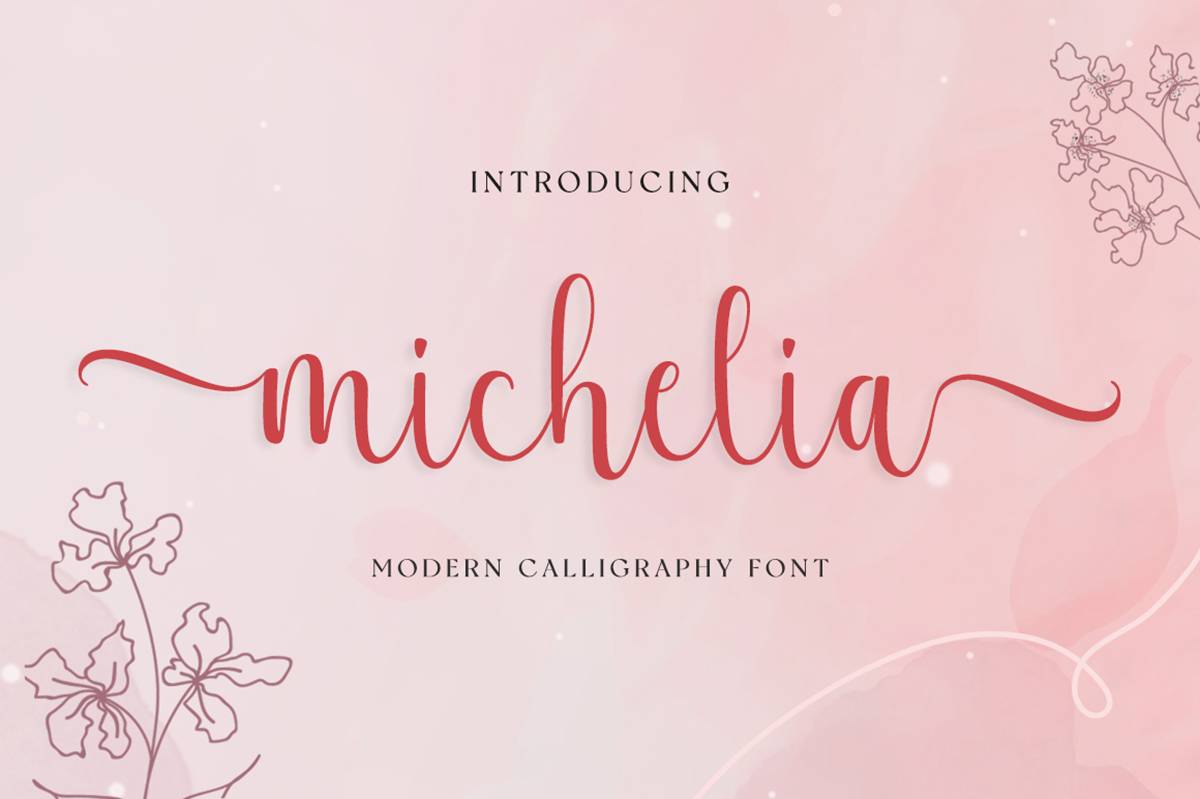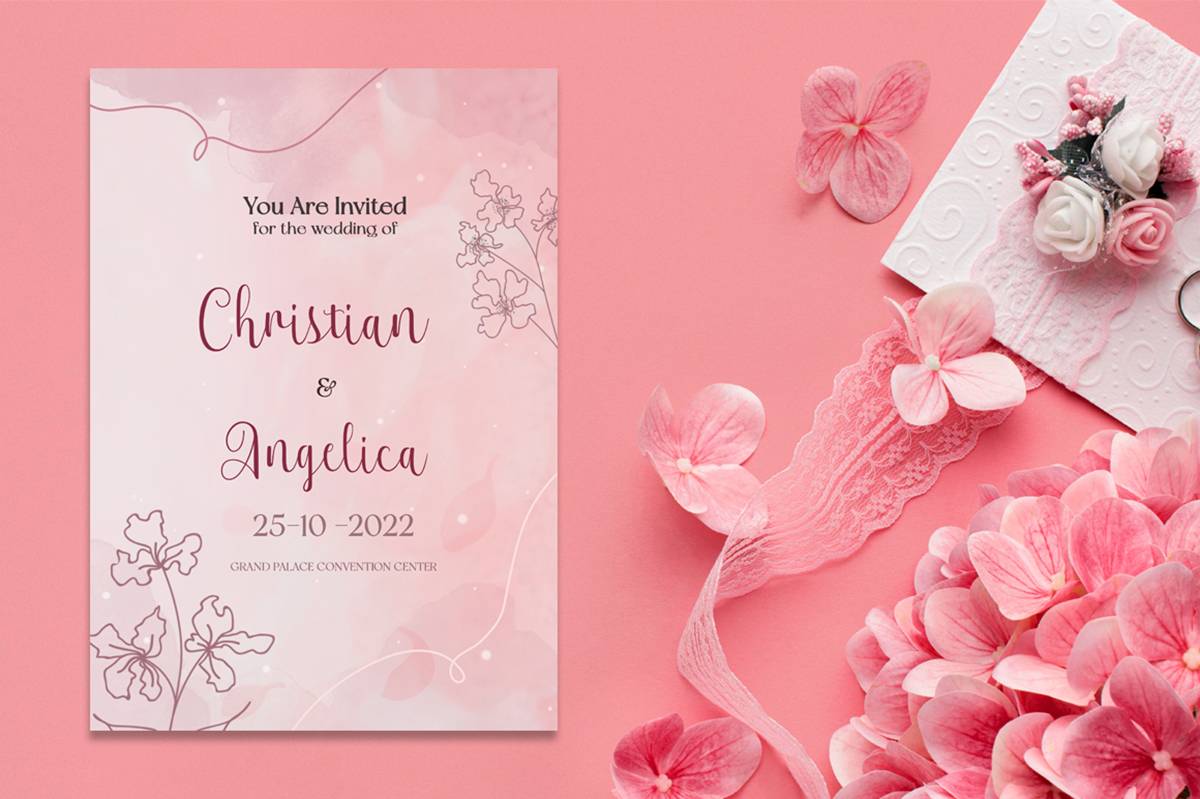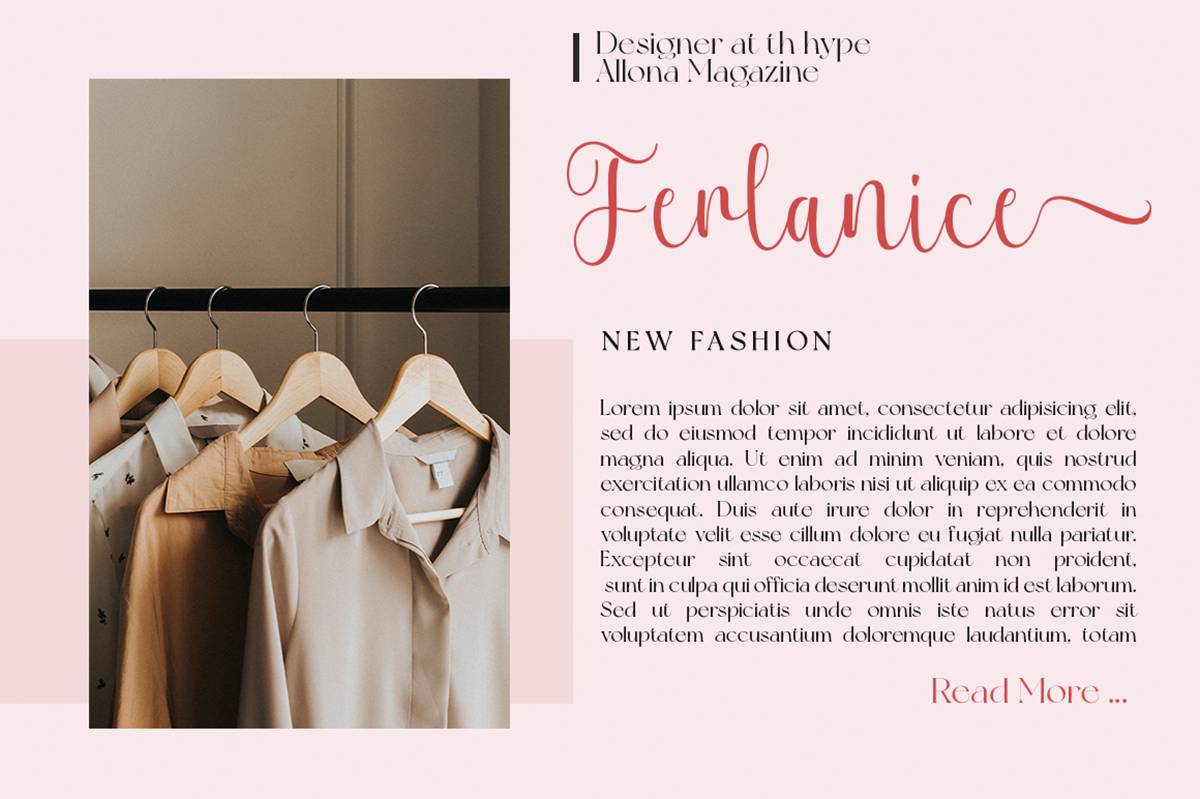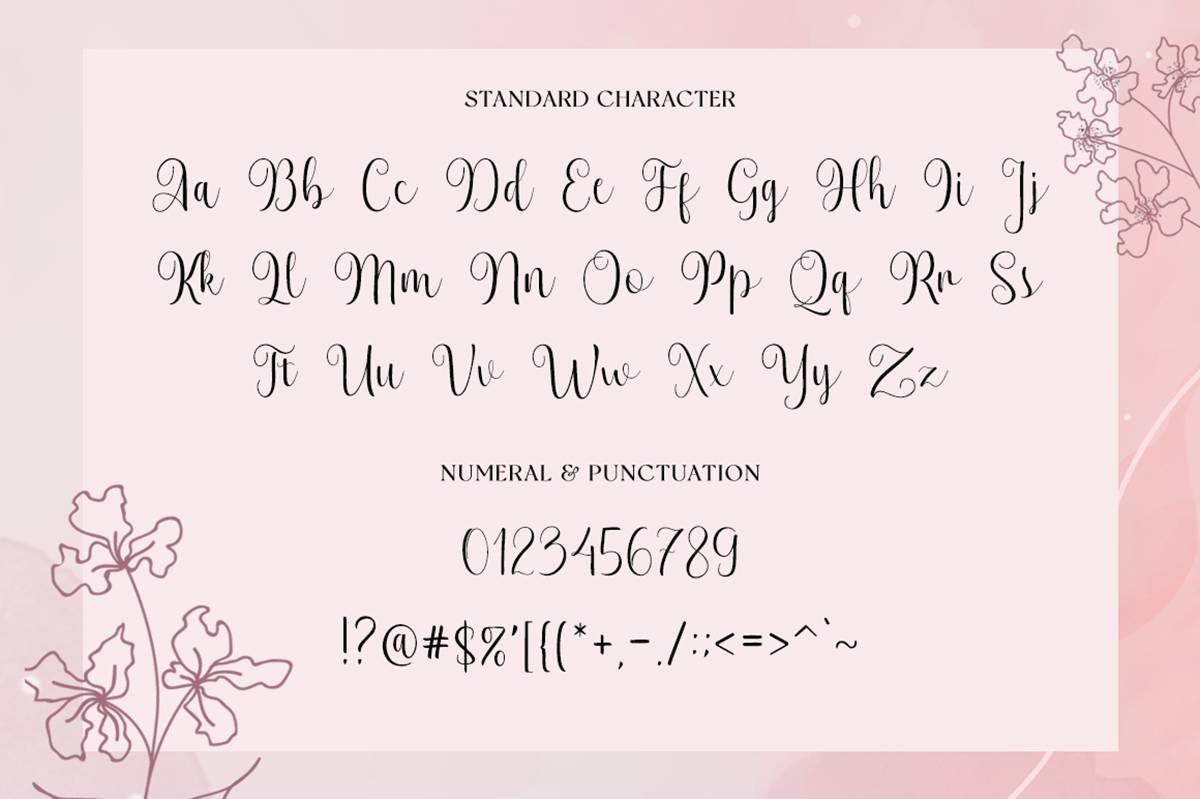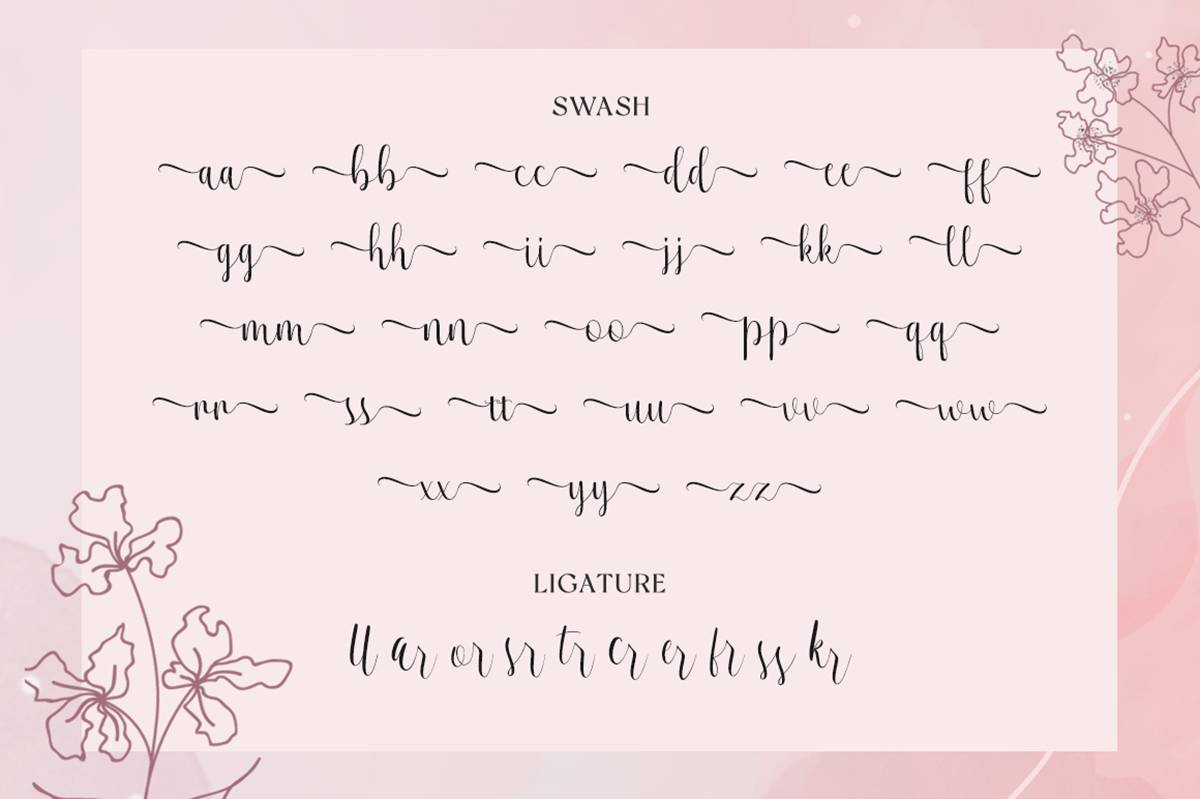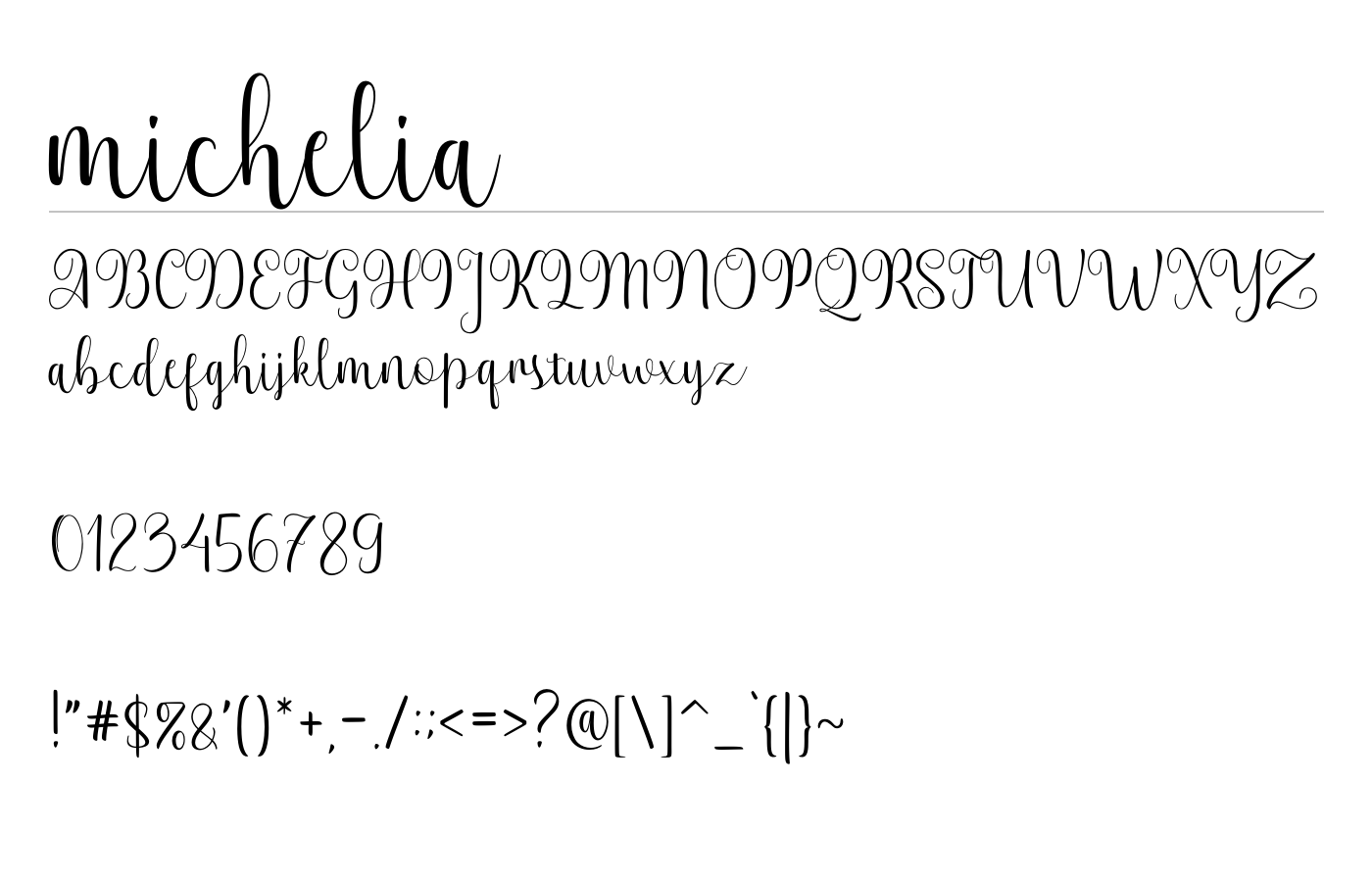
Michelia is an elegant script font characterized by its slender, flowing strokes and delicate curves, offering a light and airy feel. Its calligraphic style with charming swashes and smooth connections makes it ideal for feminine and sophisticated designs, perfect for invitations, branding, and greeting cards where a graceful, personal touch is desired. This font’s refined appearance brings a sense of warmth and artistry to projects that call for a stylish yet readable handwritten look.
Michelia Font
About Michelia Font
| Font family | Michelia Font |
| Release date | 2021-10-25 |